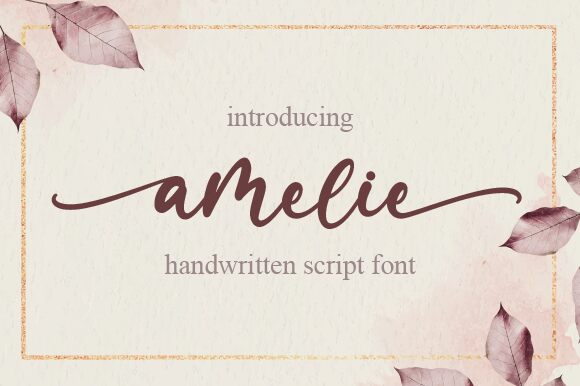
Amelie
Amelie, a stunning handwritten font designed by Graphix Line Studio, adds a touch of elegance to any project. The flowing curves and loops of this semi-bold typeface create a sense of whimsy and romance, making it perfect for wedding invitations, love letters, or romantic poetry. Its versatility also makes it suitable for branding projects such as logos or packaging design. With its unique personality, Amelie is sure to impress and captivate any audience.